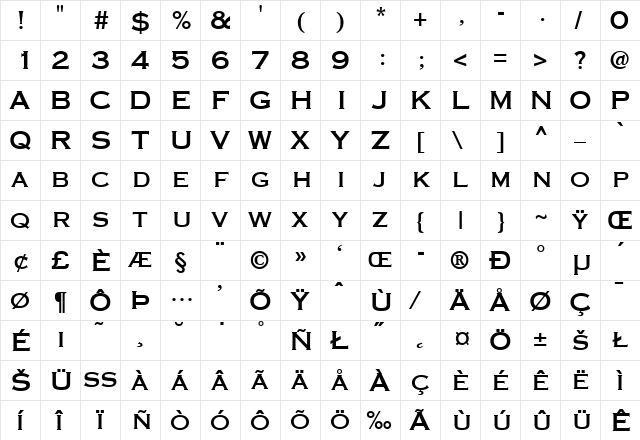
Copperplate-ThirtyOneAB Regular
Design Context for Copperplate-ThirtyOneAB Typeface
Copperplate-ThirtyOneAB takes a measured approach to typography — its balanced proportions and neutral character make it a reliable workhorse for both digital and print work.
Pro Tip: Use Copperplate-ThirtyOneAB in both headline and body roles to test its range before committing to a single application.